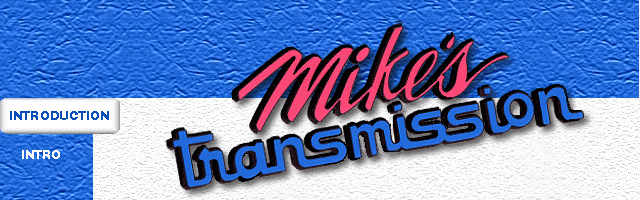
Does anyone know what either of these fonts are?
looks like signpainters script...the Mike ... since the lower case... s... looks like commerial script......the tranny looks like it came out of engineer's ruler, that stick your pencil through..but like the look....THANK YOU & ENJOY LIFE
Definately a one of a kind, hand-created logo. I've seen a similar script in Sign DNA fonts, and I'm sure there's something available here on Signs101.
You might be able to work with Handel Gothic for the word "transmissions".